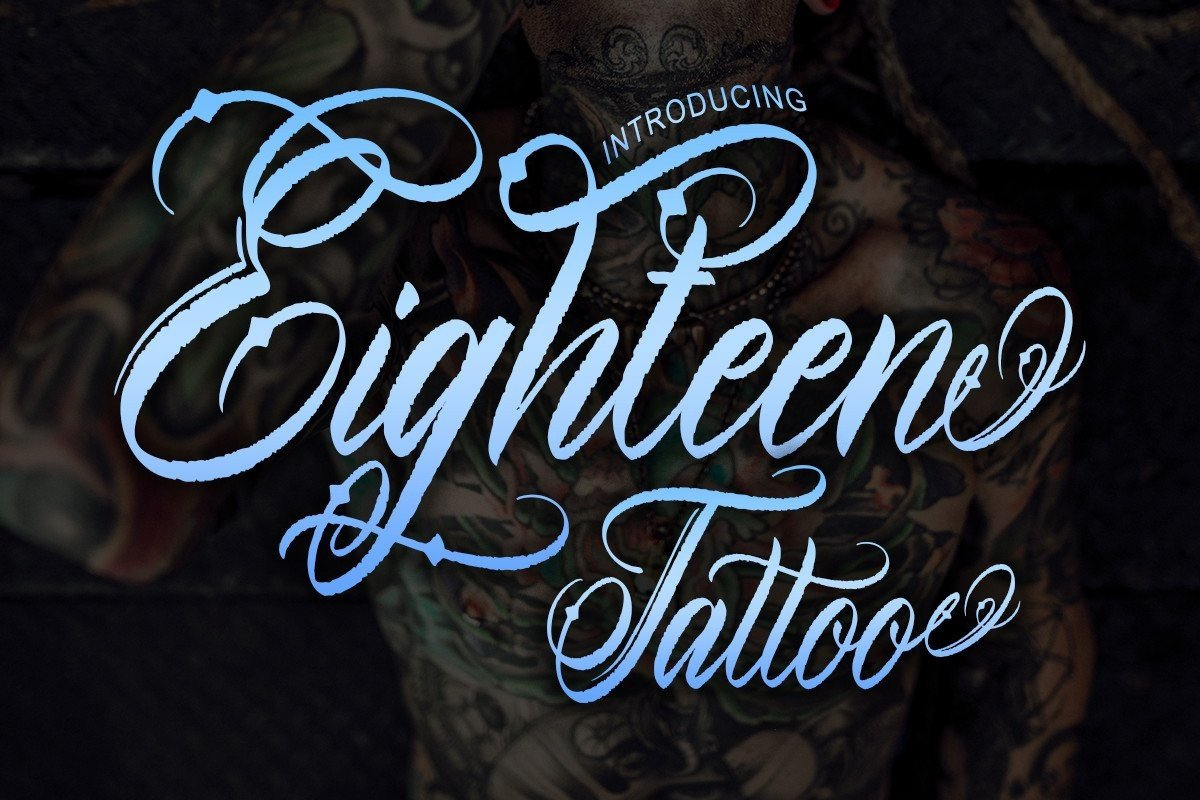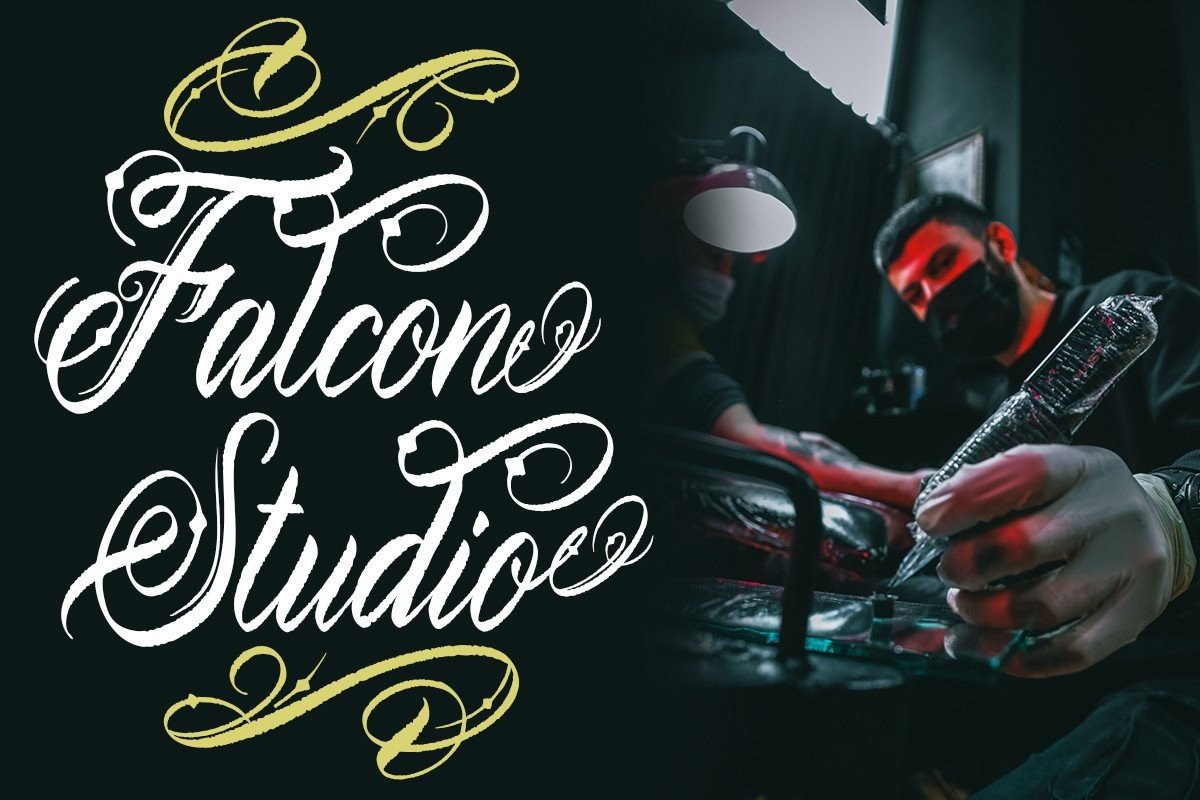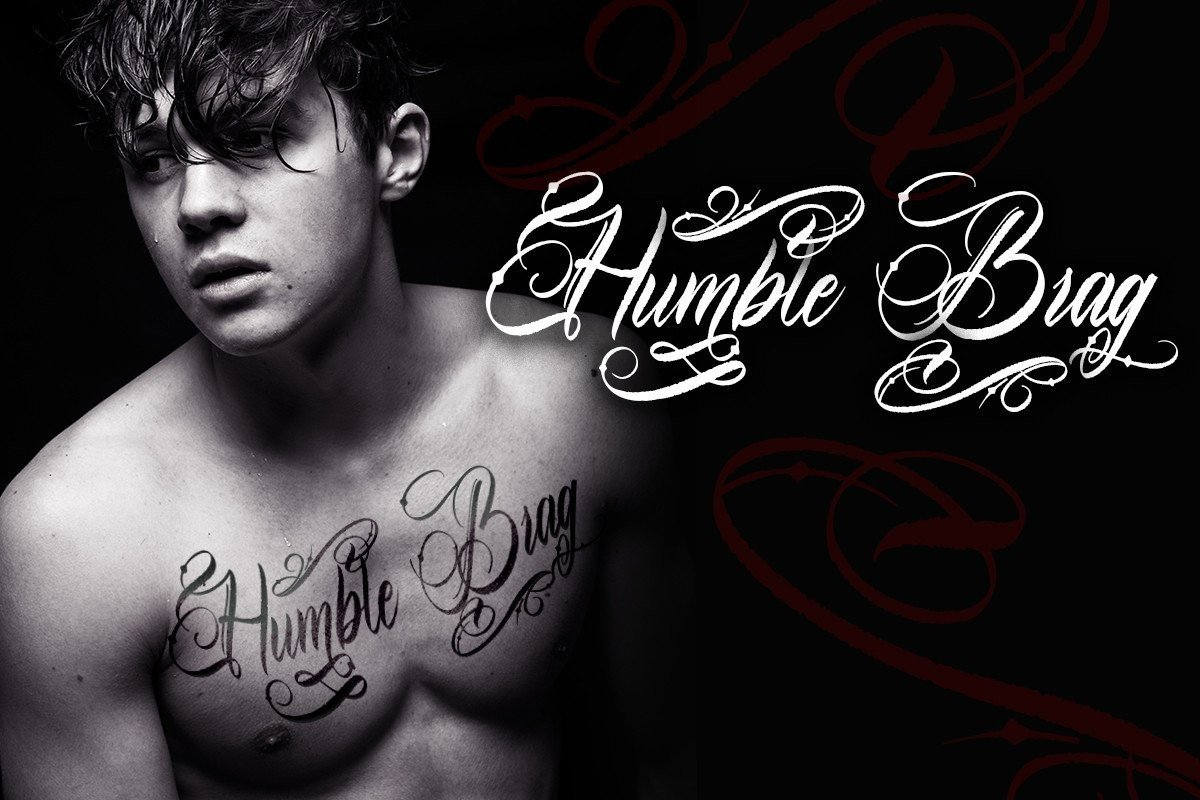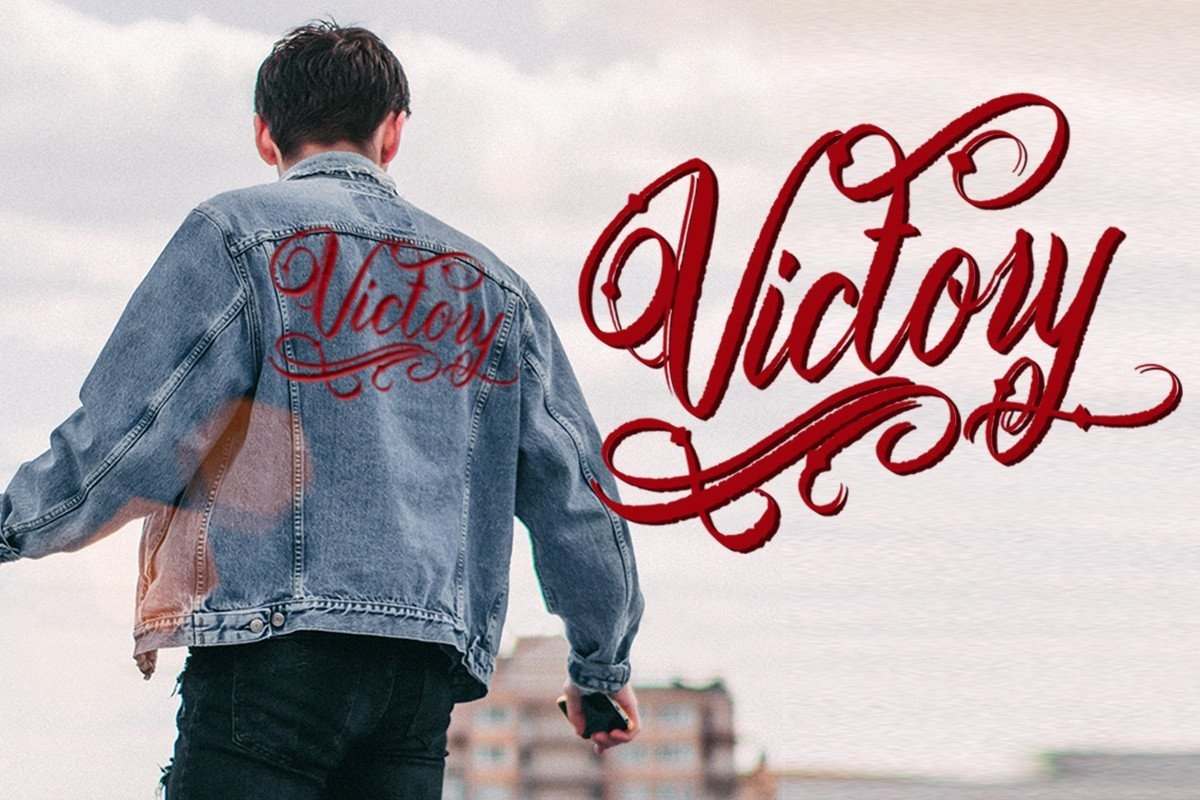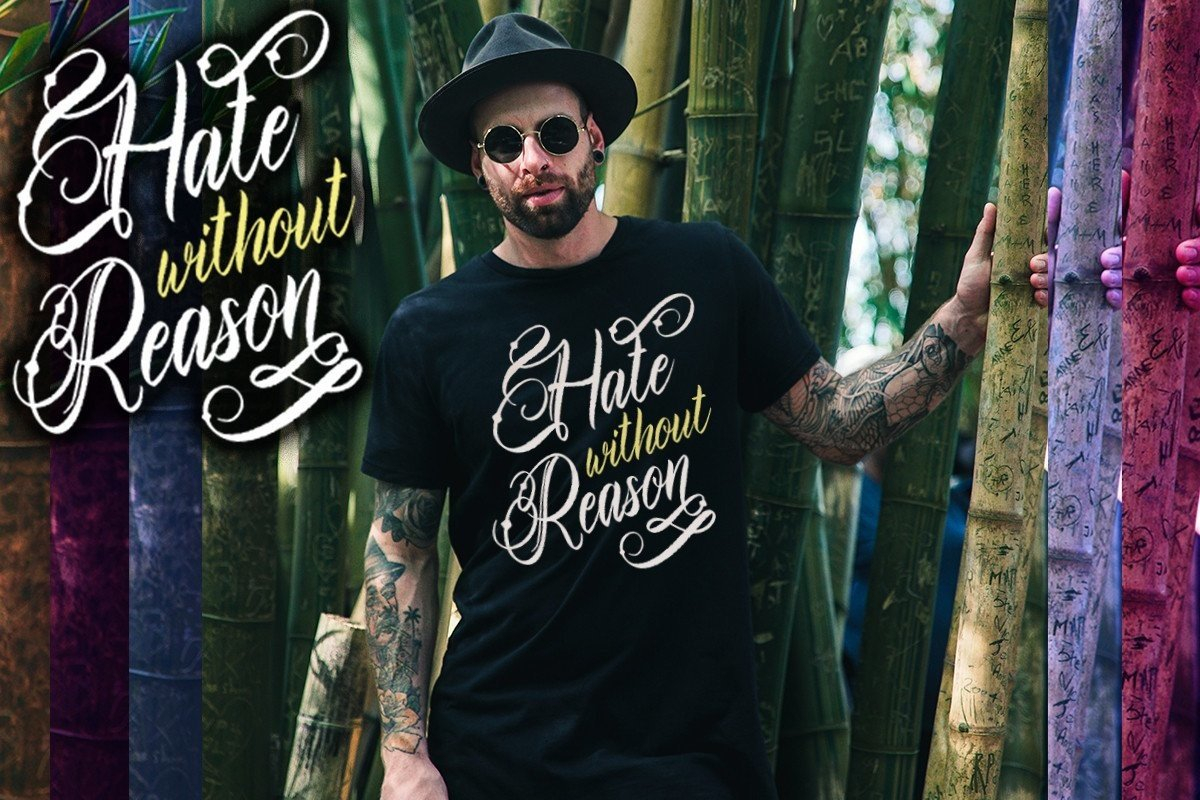
About Eighteen Tattoo Font
Eighteen Tattoo is a cool and refined lettered tattoo-style blackletter font. Add it confidently to your projects, and you will love the results.